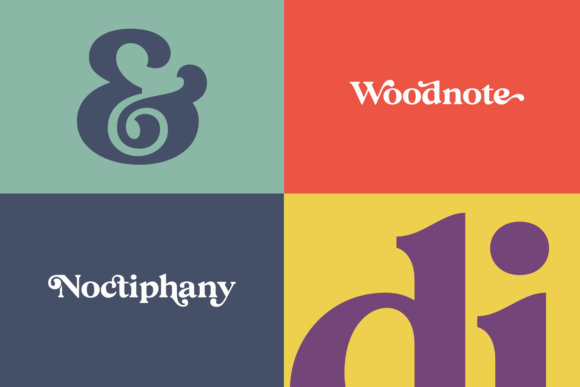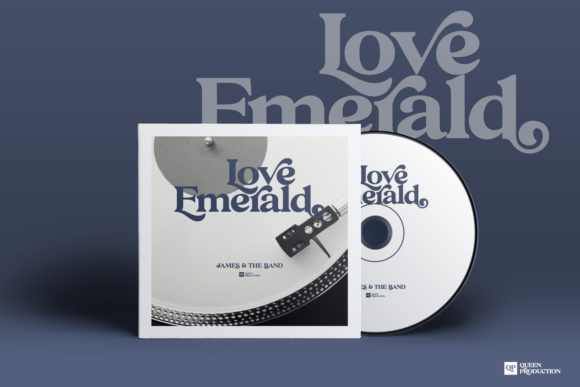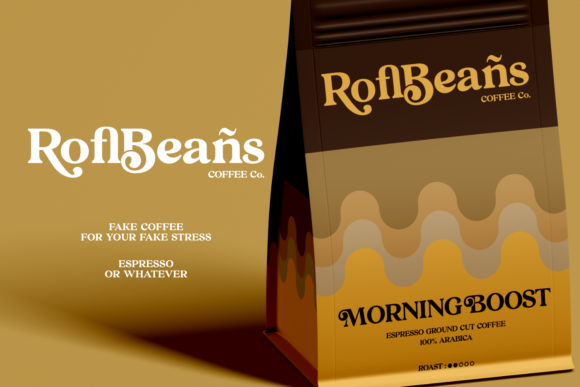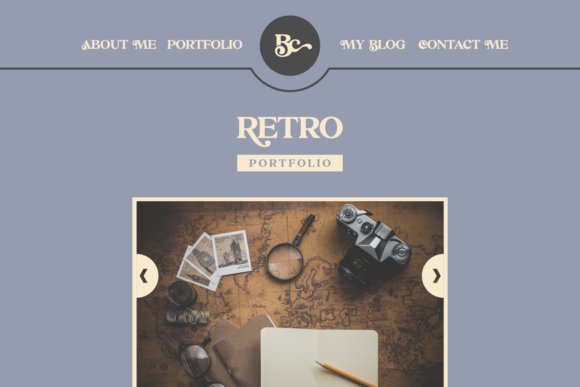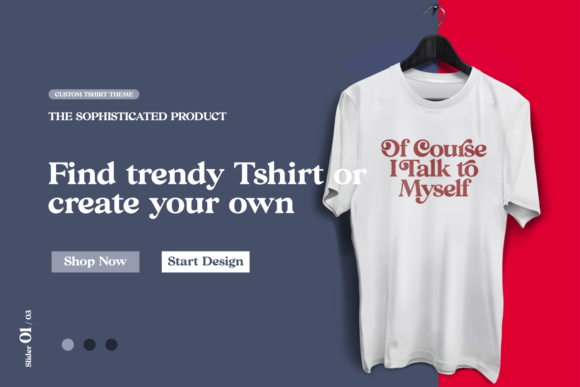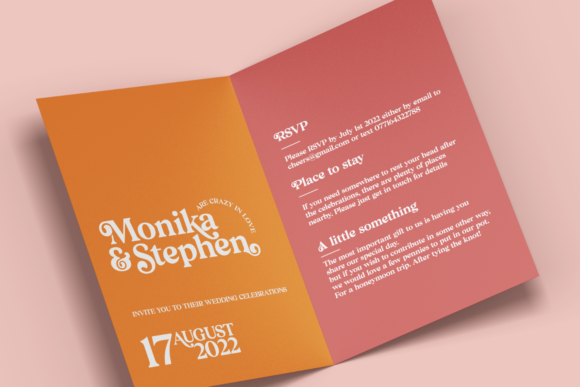
The Ballroom Font: A Vintage Gem for Your Design Projects
I’ll never forget the time I was working on a wedding invitation project, and my client asked for a font that would transport their guests back to the 1970s. I scoured the internet, tried countless fonts, but nothing seemed quite right. That was until I stumbled upon the Ballroom font. ✨
As soon as I saw it, I knew I had found the one. The elegant serifs, the classic vibe, and the versatility – it was all there. In this article, I’ll share my experience with the Ballroom font, its features, and how to make the most of it in your design projects.
- ✅ Versatility: Ballroom is a very versatile font, covering a wide range of project types, from bold magazine imagery to wedding invitations, branding, poster design, logos, and more.
- ✨ Vintage charm: The font’s 1970s inspiration gives it a unique, retro flair that’s perfect for projects that need a touch of nostalgia.
- 🔍 Excellent legibility: The serifs provide great legibility, even at smaller font sizes, making it suitable for body text and headlines.
While Ballroom is an excellent font, there are a few things to keep in mind: 🤔
- ⚠️ Limited use in non-design contexts: While it’s an amazing font for design projects, it might not be the best choice for non-design uses, such as a website’s body text or a social media post.
- ⚠️ Some manual kerning required: As with any font, you might need to adjust the kerning manually to achieve optimal results, especially when using it for headlines or titles.
- Experiment with OpenType features, such as stylistic alternates, to add some extra flair to your design.
- Exploring the available glyphs, stylistic alternates, and other features to customize your text.
The Designer Inspiration Behind Ballroom
Ballroom was created with the 1970s era in mind. The designer aimed to capture the essence of that decade’s typography, with its characteristic serifs, classic proportions, and elegant feel. The result is a font that’s both nostalgic and versatile, perfect for a wide range of design projects.
Q: What makes Ballroom a versatile font?
A: Ballroom’s versatility comes from its classic design, which works well for both bold and elegant projects, from wedding invitations to bold magazine imagery.
Q: Can I use Ballroom for body text?
A: While Ballroom is legible, it’s primarily designed for headlines and titles. For body text, you might prefer a font with better line spacing and a more neutral feel.
Q: Does Ballroom support OpenType features?
A: Yes, Ballroom supports OpenType features, including stylistic alternates, glyphs, and more, which can add extra flair to your designs.